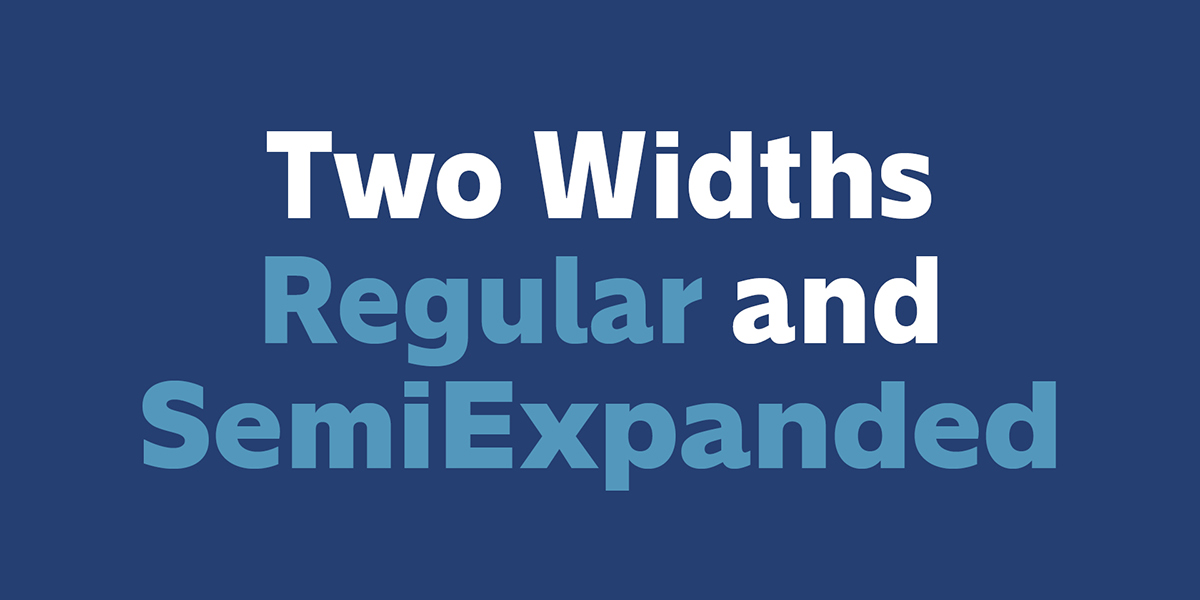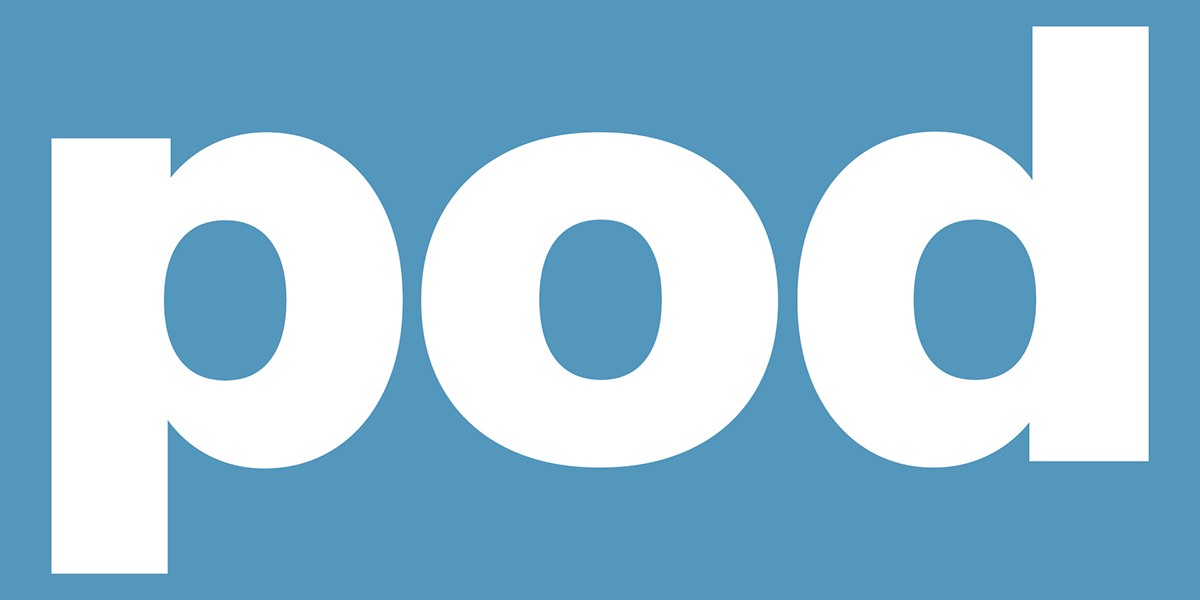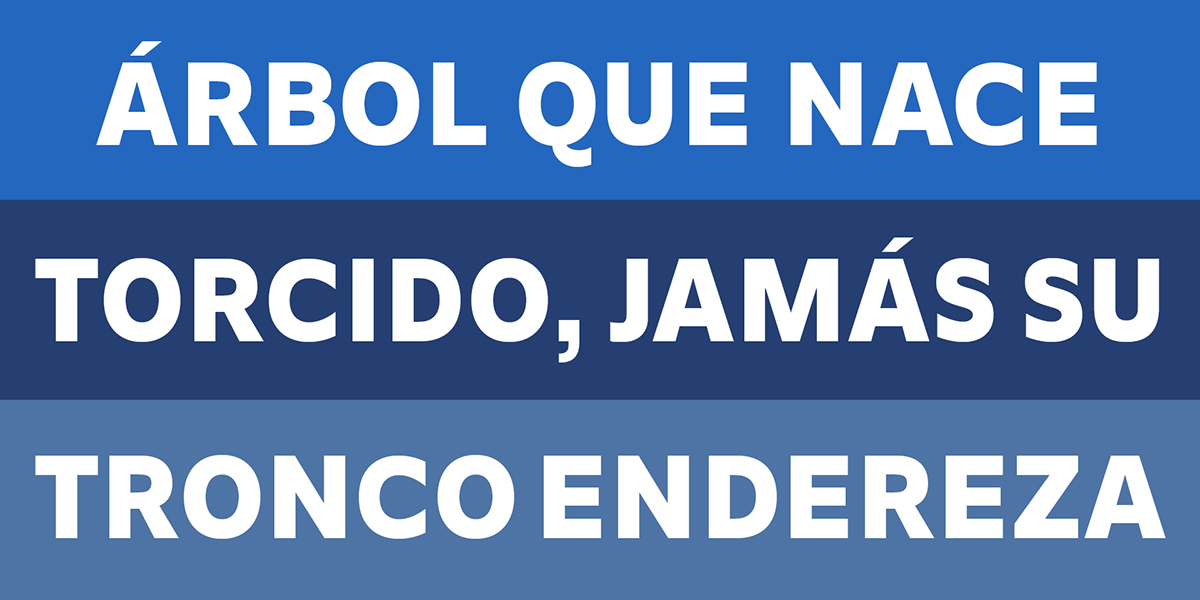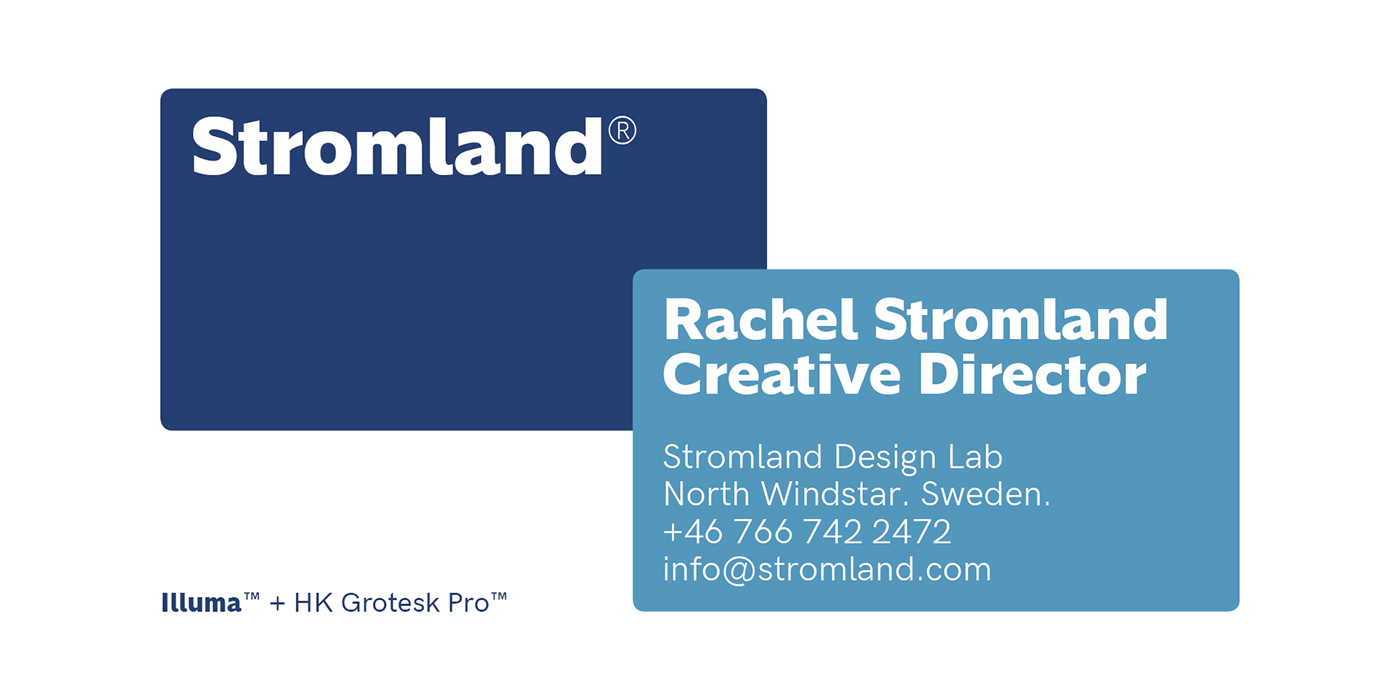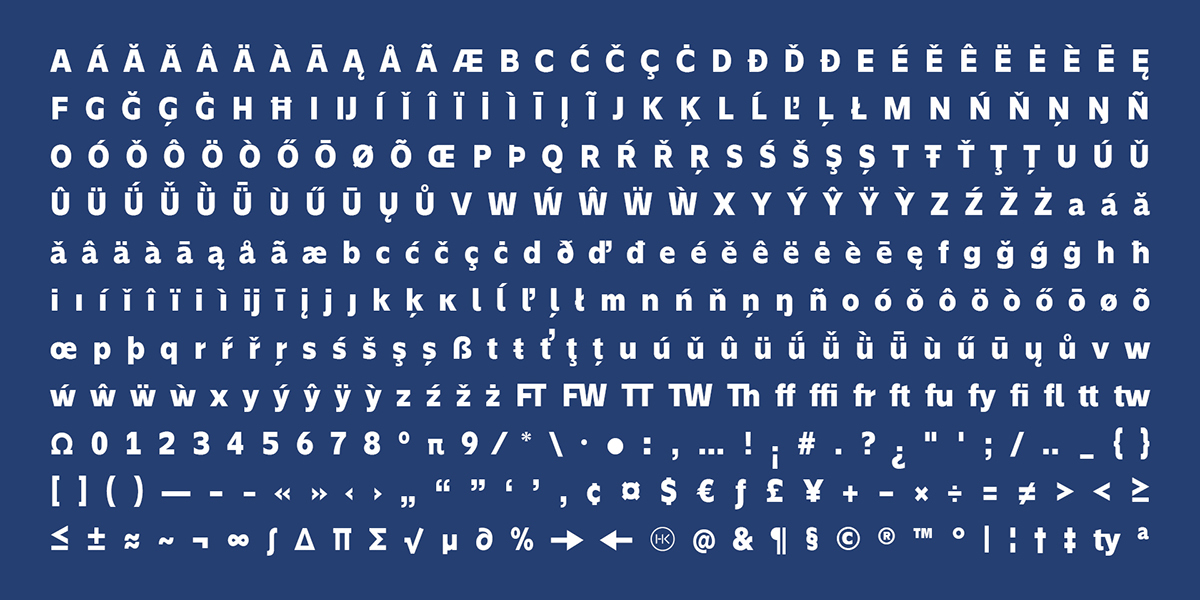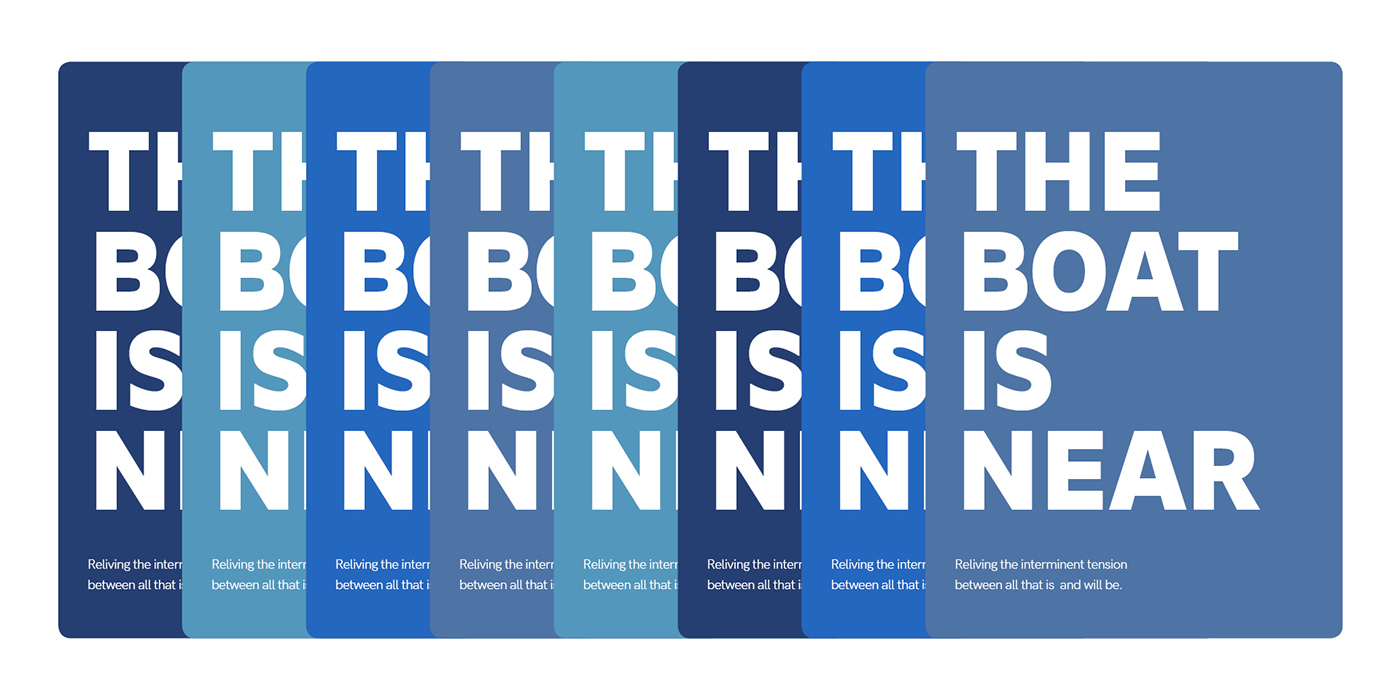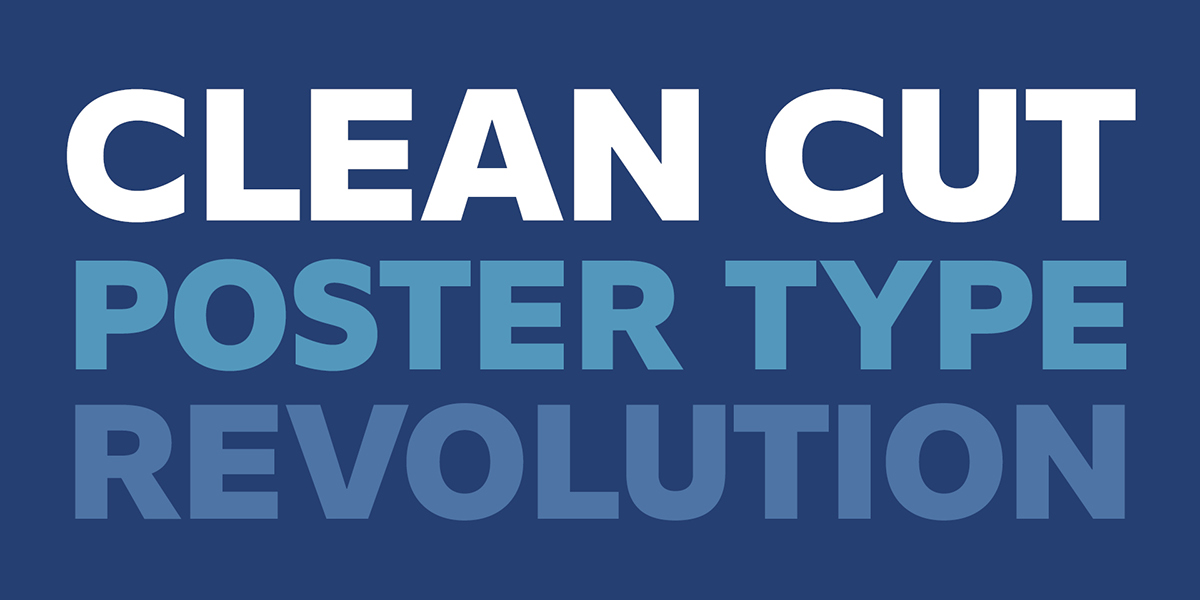
Illuma Free Typeface
We strive to introduce to you the most beautiful fonts and high quality, help you make your project the best. Continuation is a sans serif typefaces, and it’s good that it’s free. Introducing Illuma Typeface! Illuma was designed and shared by Alfredo Marco Pradil. Illuma is a high impact typeface for display purposes, headlines, posters, signage and logotypes. You could use it in editorial, magazine, product packaging, branding, etc.